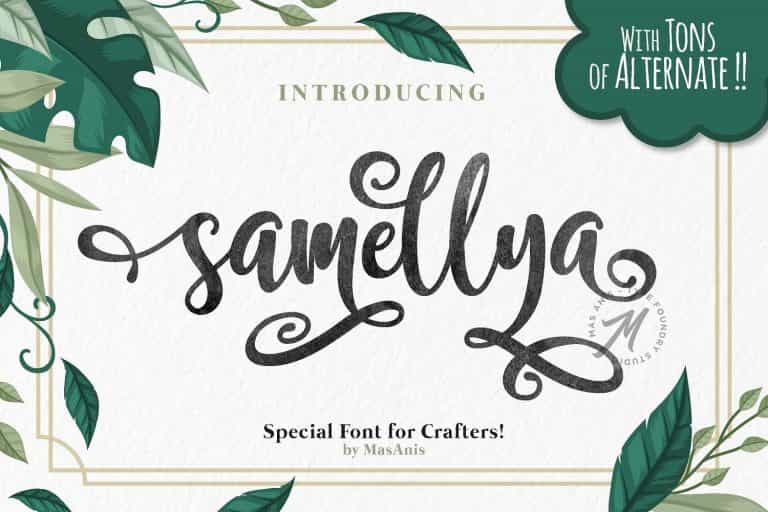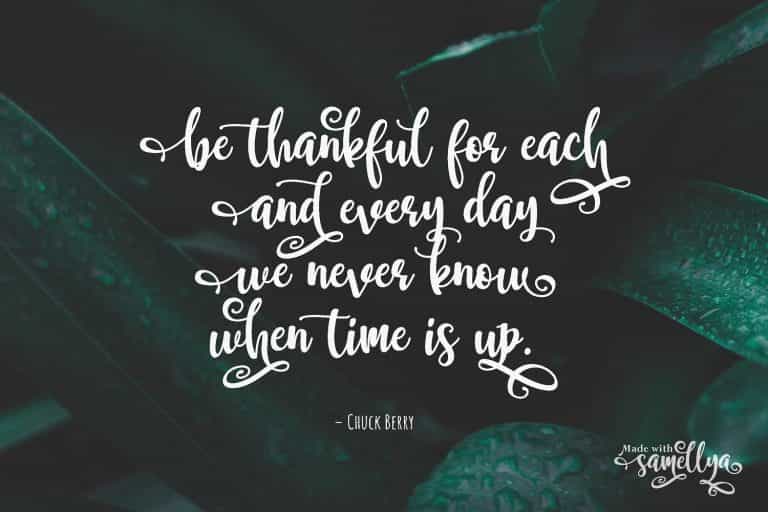
Discover Samellya Script Font, part of the Brush Comic collection—a versatile and unique font perfect for adding a personal touch to your projects. Download it for free and enjoy crafting designs with style, from invitations to social media posts. This font is available exclusively for personal use, giving you the freedom to create without limits. Unlock your creativity with Samellya Script Font today!
Introducing Samellya Font. It was created by Mas Anis. Samellya is a font designed for the crafters who want absolute design freedom, you can create whatever you like with this decorative font using many swashes and alternates; it will be perfect for any project such as merchandise, logo, invitation, quote, social media post magazine cover watermark and others!!